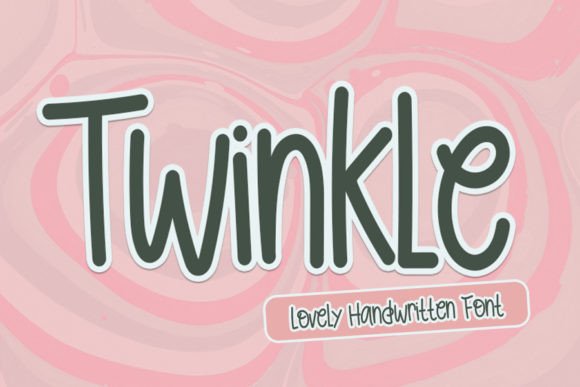
About Twinkle Font
Twinkle, a casual and elegant script font, is a delightful addition to your font collection. Its versatile style opens up a range of creative possibilities, making it a perfect choice for various design applications. Whether you’re working on wedding invitations, stationary art, social media posts, or any other project that demands a touch of elegance, Twinkle is here to shine.
The charm of Twinkle lies in its casual yet sophisticated design. The script font dances along the baseline with grace, adding a sense of fluidity to your typography. This makes it suitable for creating visually appealing and stylish designs across different contexts.
Consider using Twinkle to infuse a touch of elegance into your wedding invitations, where the font’s casual script adds a romantic and timeless vibe. Its versatility extends to beautiful stationary art, eye-catching social media posts, and any other creative project where a balance of casual and elegance is desired.
The adaptability of Twinkle makes it suitable for both digital and print materials. Whether you’re crafting online visuals or designing physical items like posters and cards, Twinkle brings a versatile and charming script style to enhance the overall aesthetic.
In essence, Twinkle is more than just a font; it’s a design tool that allows you to play with casual elegance. Fall in love with its graceful strokes, and let Twinkle be the star that adds a touch of charm to your wedding invitations, social media posts, and beyond. Embrace the versatility of Twinkle and create designs that shine with sophistication.